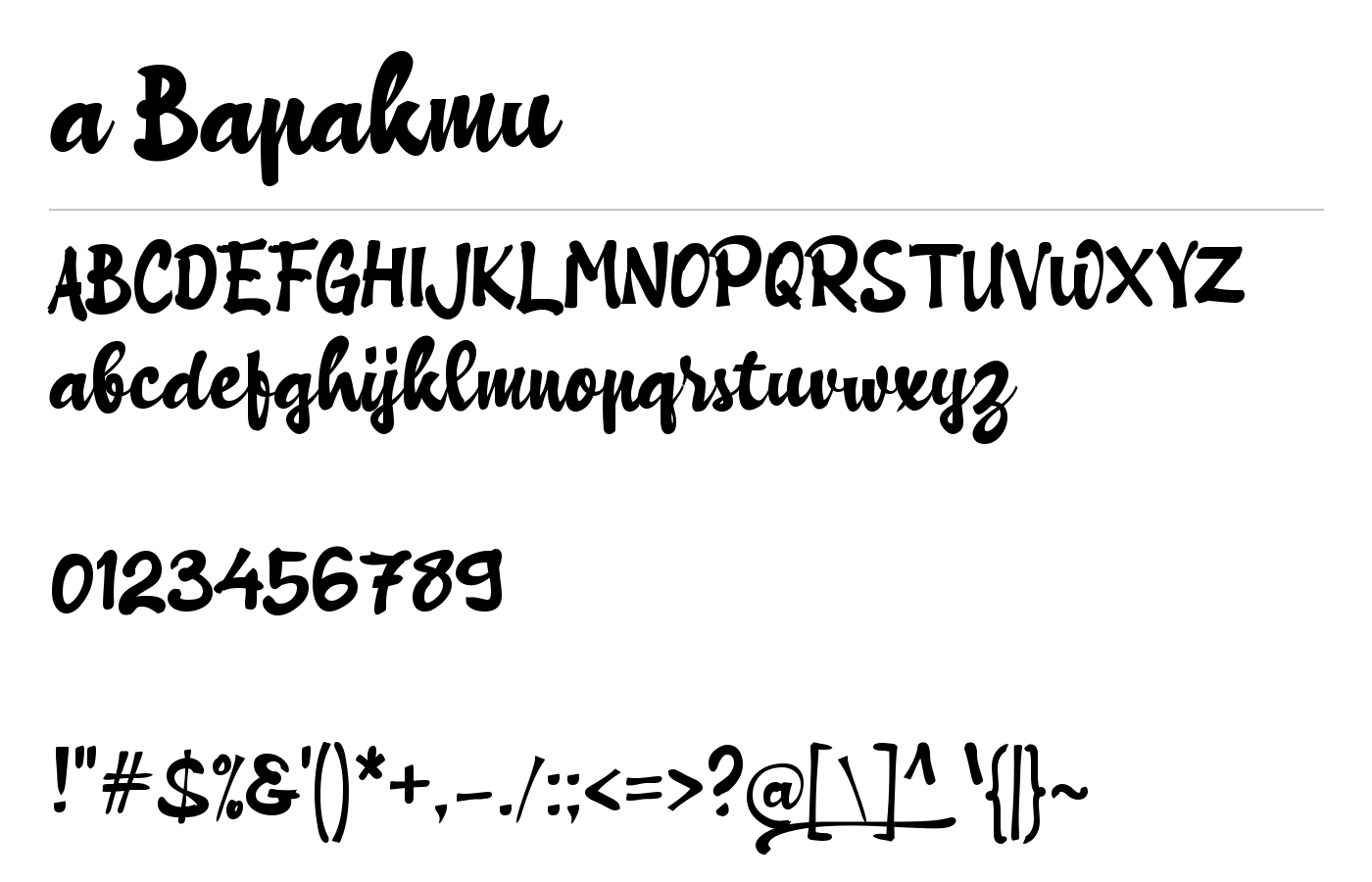
a Bapakmu is a lively script font with bold strokes and a playful, hand-drawn feel. Its strong, slightly irregular forms and high contrast between thick and thin lines give it character and energy, making it ideal for informal branding, creative projects, and eye-catching headlines. This font works well where a friendly, dynamic personality is needed, especially in logos, posters, and social media graphics.
a Bapakmu Font
About a Bapakmu Font